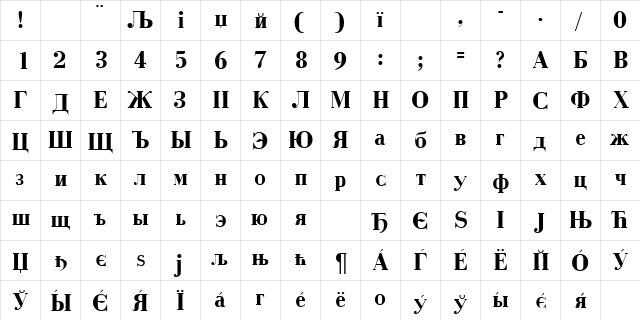
BodoniCyrillic Bold
Design Context for BodoniCyrillic Typeface
BodoniCyrillic is a composed and adaptable typeface that performs quietly and consistently across a wide range of design contexts. The heavy weight commands attention and anchors typographic hierarchies.